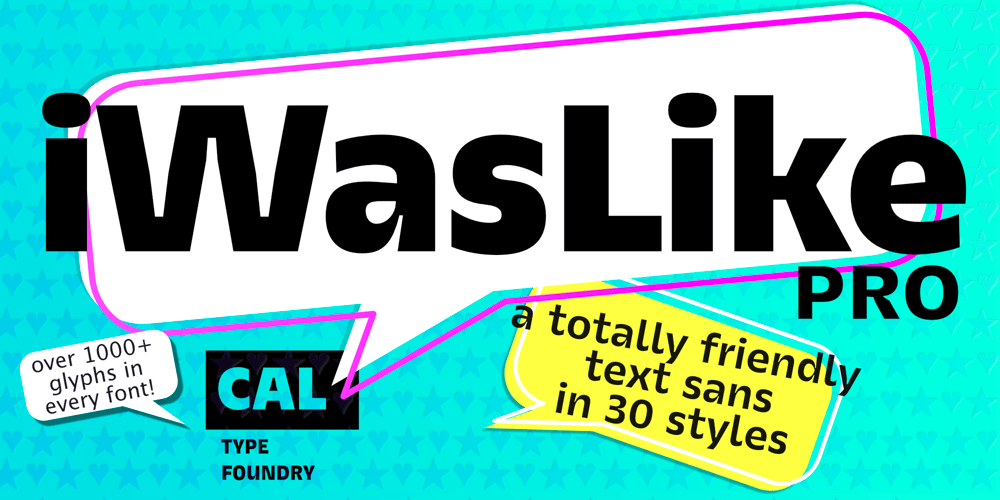
CAL iWasLike Pro
CAL iWasLike Pro font
CAL iWasLike Pro Font Family was designed by Dave Lawrence and published by California Type Foundry. CAL iWasLike Pro contains 30 styles and family package options. CAL iWasLike™ Pro is totally for sure the amazing friendly font you need for, like, everything! Its conversational tone makes reading fun and enjoyable!Designed for friendly, paragraph reading ease on screen or medium res print, with the full set of OpenType features. It’s design gives it the most even text shade for digital fonts, and has less holes in the text for easier reading.iWasLike™ is a large x-height, informal text and caption font designed to render well for Apple Quartz and Microsoft devices, low res to high res printing, with full Western Central European, and Turkish support, small caps, superiors, inferiors, fractions, as well as some special additions like music symbols, pricing feature, arrows, and two sets of circled numbers.